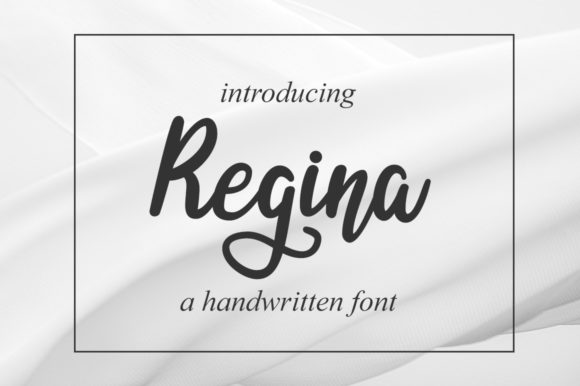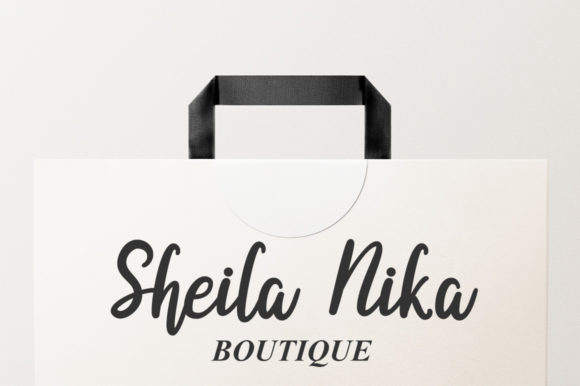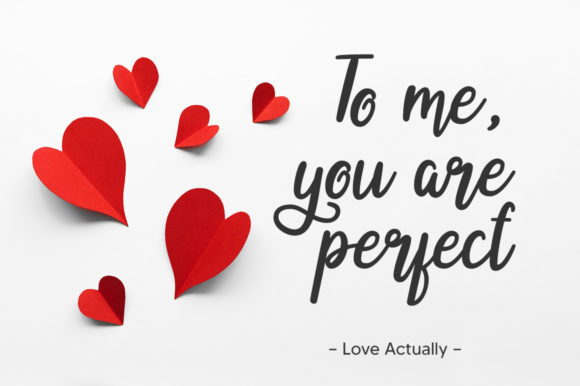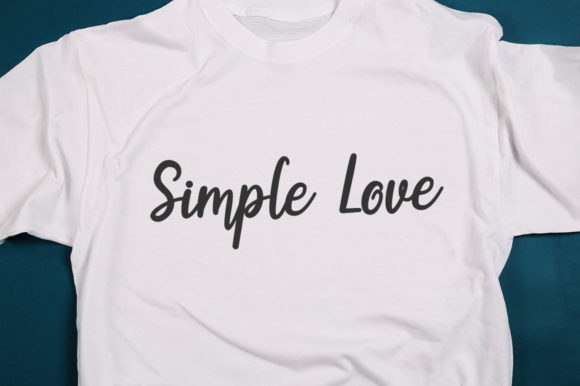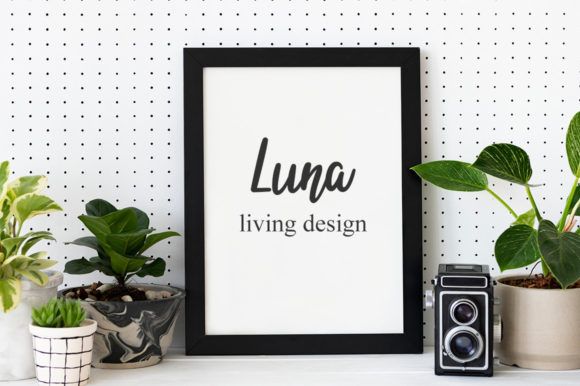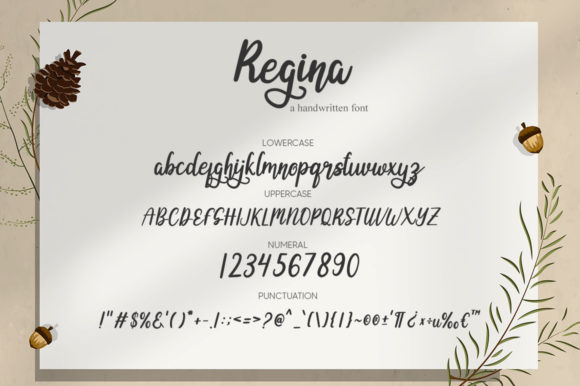
Regina Font
About Regina Font
Regina is a graceful and alluring script font. It looks gorgeous on wedding invitations, thank you cards, quotes, greeting cards, logos, business cards and every other design which needs a customized touch.